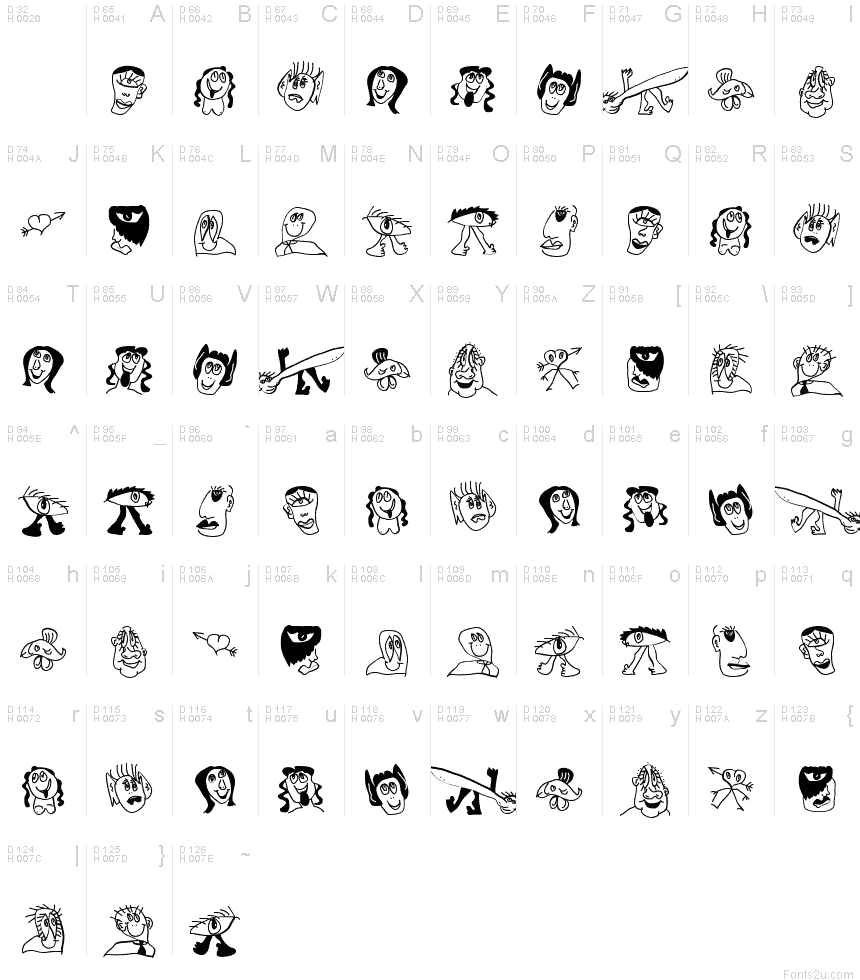
Podgląd czcionki KarlasInterpreted
Karlas Interpreted is a free cartoon portrait dingbat font built from loose, hand-drawn faces. Each figure uses uneven outlines, exaggerated eyes, broad mouths, and wildly different hair or head shapes, giving the set the mischievous wit of quickly drawn newspaper doodles, all held together by a rough improvised line.
Publishing is its most convincing home, especially in humorous columns, activity books, and offbeat editorial features. The faces can also enliven children's games and novelty merchandise, since every symbol reads as a distinct comic personality. Its best role is as comic editorial spot art.